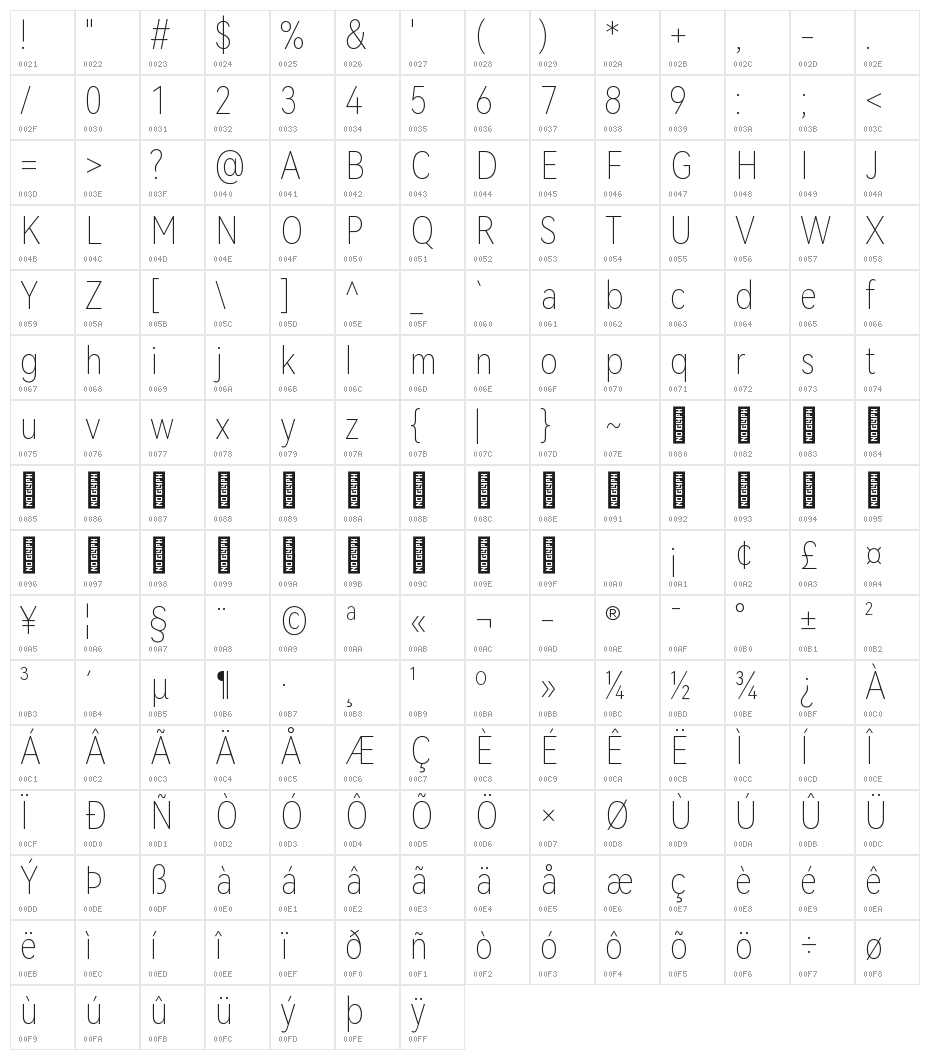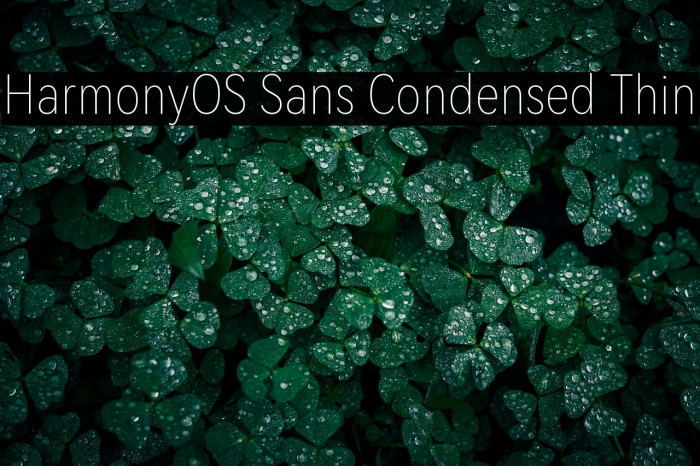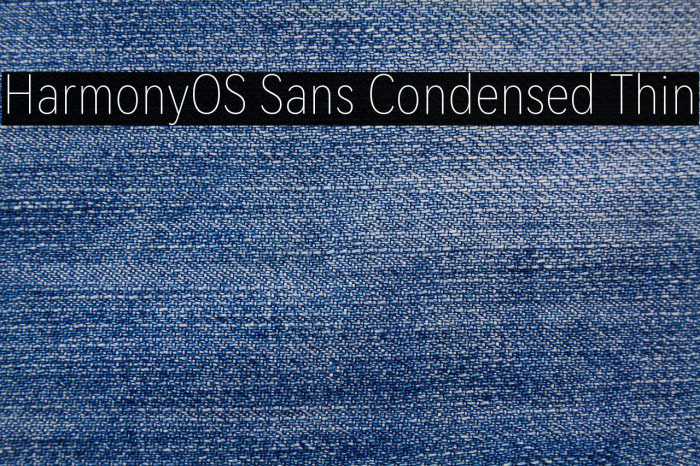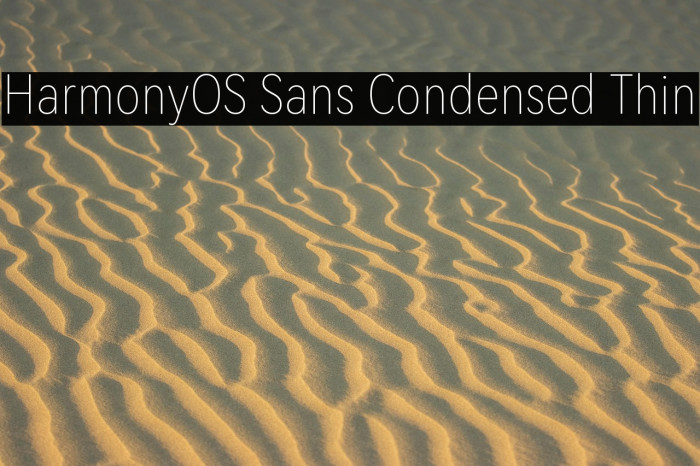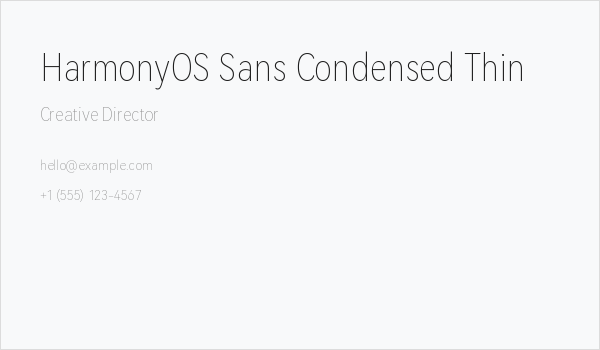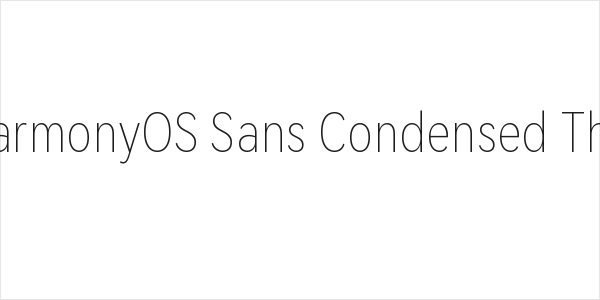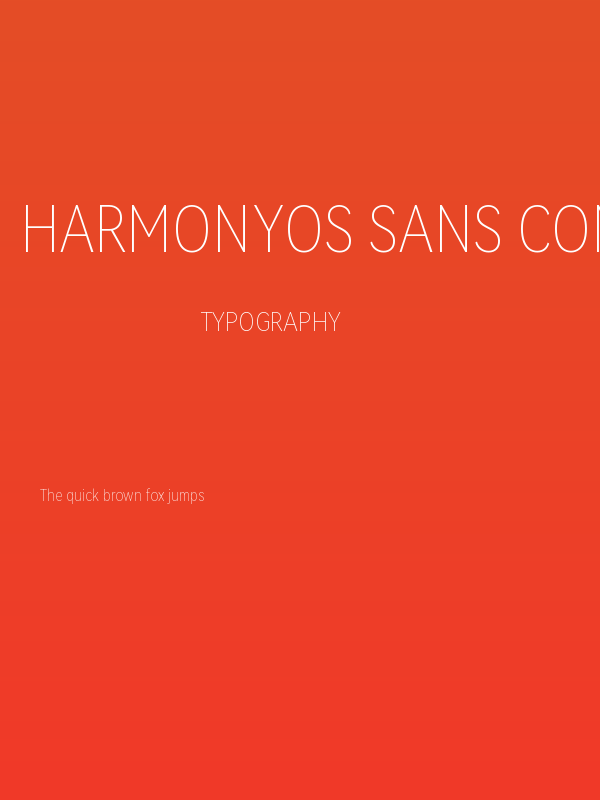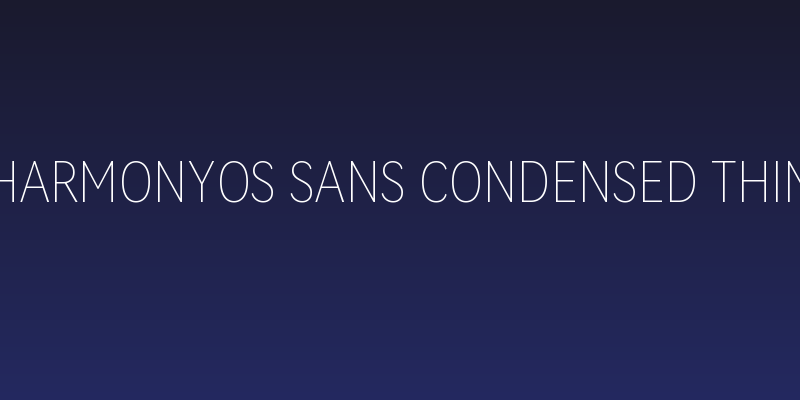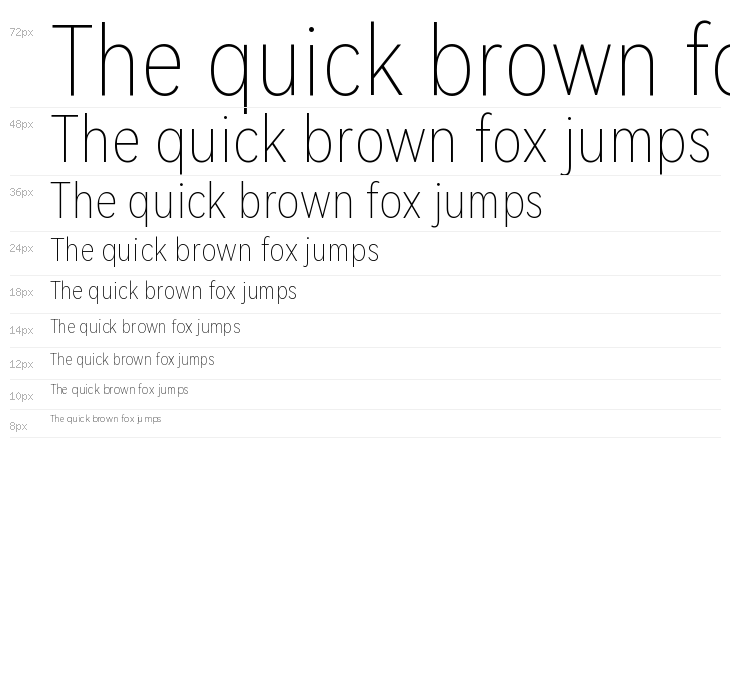
HarmonyOS Sans Condensed Thin Font
HarmonyOS Sans Condensed Thin Description
This typeface is a modern sans-serif font characterized by its thin, clean lines and condensed letterforms. It features a minimalist aesthetic with uniform stroke widths, providing a sleek and contemporary appearance. The uppercase and lowercase letters are well-proportioned, offering excellent readability. The numerals and special characters maintain the same thin structure, ensuring consistency throughout the typeface. Its simplicity and elegance make it versatile for various design applications.